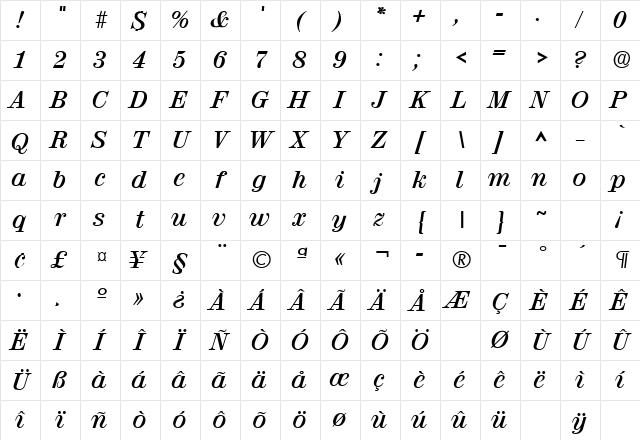
Valencia Bold Italic Free Font
Valencia Bold Italic
Design Context for Valencia
Valencia is a composed and adaptable typeface that performs quietly and consistently across a wide range of design contexts. The slanted form adds forward momentum and visual energy. Its bold stroke weight gives it real presence on the page.
Pro Tip: Use Valencia for emphasis, pull quotes, and subheadings where its slanted energy can add rhythm to the layout.